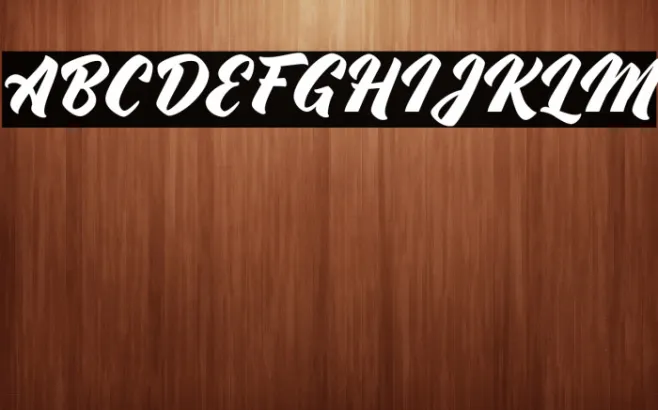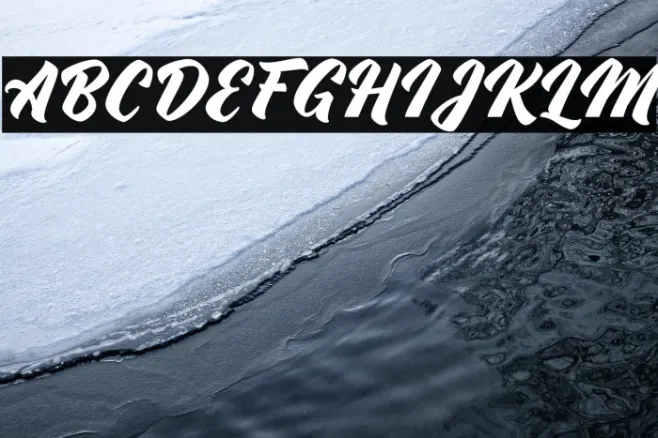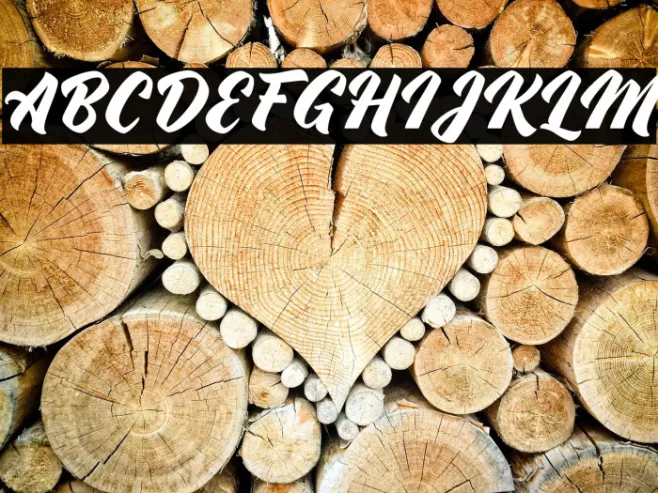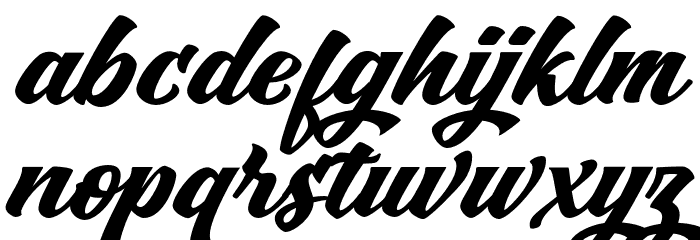
SwordfishFREE Font
This font features a bold and dynamic script style, characterized by its flowing, cursive letterforms that convey a sense of elegance and movement. The uppercase letters are particularly striking, with sweeping curves and dramatic flourishes that make a strong visual impact. The lowercase letters maintain a consistent style, with smooth connections and a rhythmic flow that enhances readability. The font's overall appearance is both sophisticated and playful, making it suitable for a variety of creative applications. Its bold weight and high contrast between thick and thin strokes add to its visual appeal, ensuring it stands out in any design.
A bold, dynamic script font with elegant, flowing letterforms.
• Proposed Projects: Ideal for branding, invitations, signage, and any project requiring a touch of elegance and flair.
• Category: Script
• Contrast: High
• Overall Style: Decorative
• Use Case: Logos, Headlines, Invitations